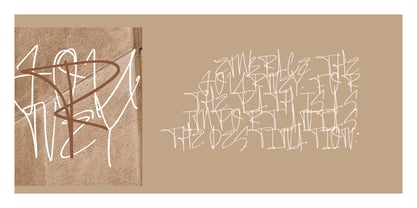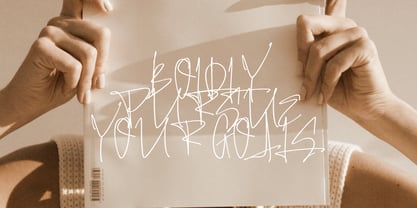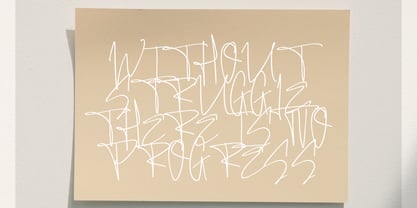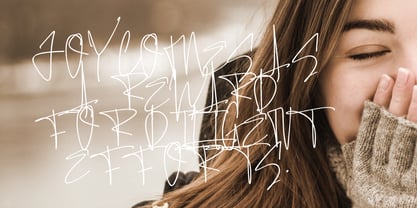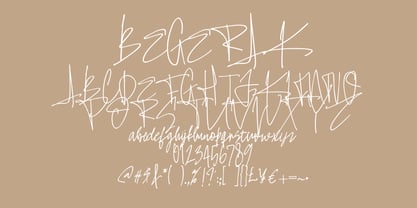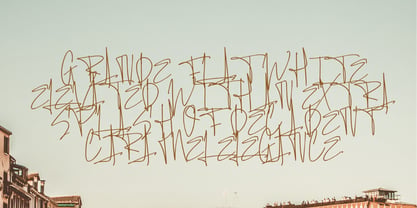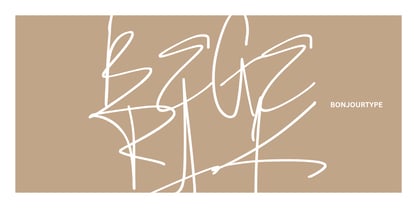
Begerak
by BonjourType
The Begerak Font Family was designed by Rachma and published by BonjourType. Begerak contains 1 styles. More about this family
Say hello to “Begerak” — an expressive script font inspired by raw, spontaneous, and freeform handwriting. Designed with a scribble-style approach, Begerak embraces imperfection through uneven strokes, irregular letterforms, and dynamic flow—capturing the energy of fast, instinctive writing. Each character feels alive, organic, and unapologetically unique. Rather than aiming for perfect readability, Begerak focuses on emotion and movement, making it ideal for artistic projects, expressive branding, posters, album covers, and designs that seek a bold and unconventional handwritten feel. Now officially managed and refined by BONJOURTYPE, Begerak offers a fresh perspective on handwritten fonts—more expressive, more personal, and full of character. Break the rules. Embrace the imperfect. Let your work stand out with Begerak.
Designers: Rachma
Current Foundry: BonjourType